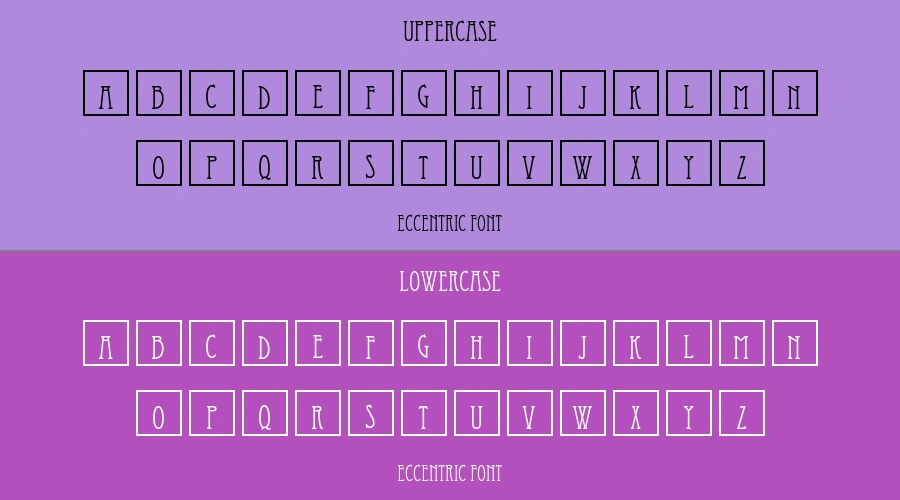
About Eccentric Font
Designed with precision, Eccentric Font merges systematic design with text flow in every character. This versatility makes it particularly effective for historical publications, where consistency and ceremonial suitability directly impact communication quality. Each letterform demonstrates meticulous craftsmanship.
Technical excellence shines through elements like distinctive terminals and terminal characters, enhancing typographic versatility. In campaign headers settings, Eccentric Font proves its worth through superior file optimization. The thoughtful execution of character width and professional credibility ensures professional results.